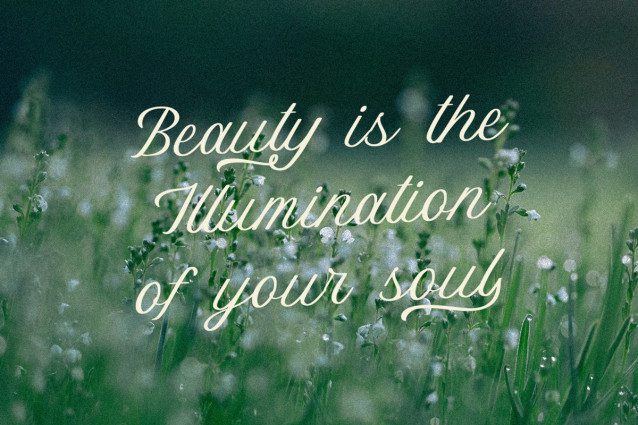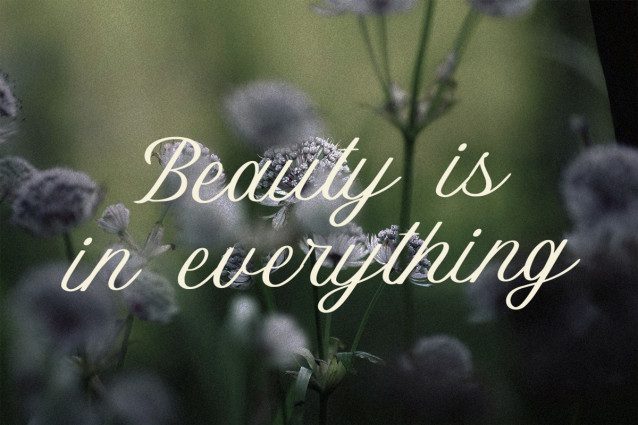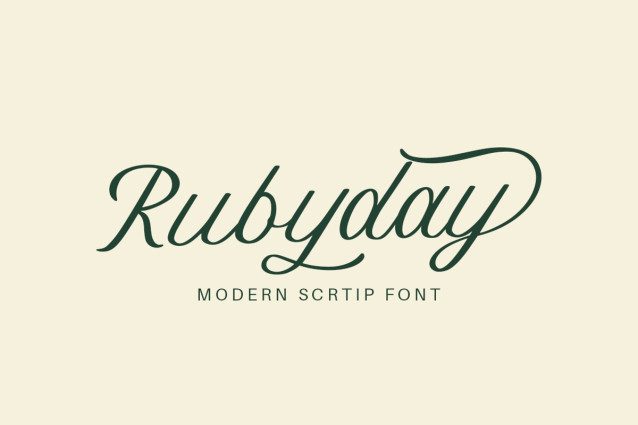
Rubyday Script Font
Rubyday Font is a modern script typeface that radiates sophistication and charm. Created for projects that demand both beauty and precision, this typeface enhances your visual presentation with its graceful flow and refined form. Ideal for branding, invitations, packaging, quotes, or elegant logo designs, Rubyday combines timeless style with contemporary appeal. Its balanced rhythm and smooth character make it versatile for both print and digital work — bringing a sense of harmony and class to every word you create.